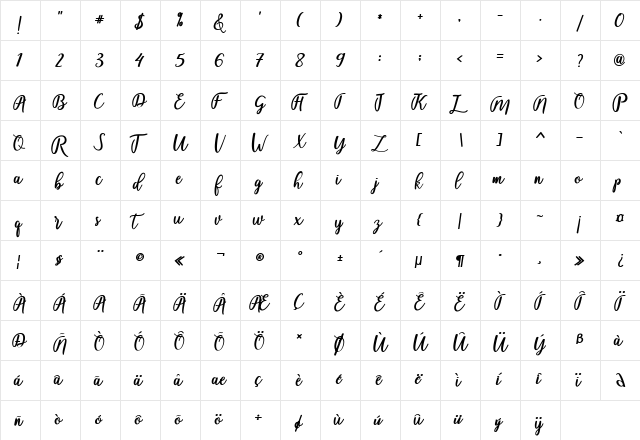
fadelya script
| Style | script |
| Foundry | mrletters_muhammad rizal |
| Designer | mrletters_muhammad rizal |
Design Context for fadelya Typeface
fadelya brings a calligraphic fluidity to the page — its connecting strokes and expressive curves give it an unmistakably human quality.